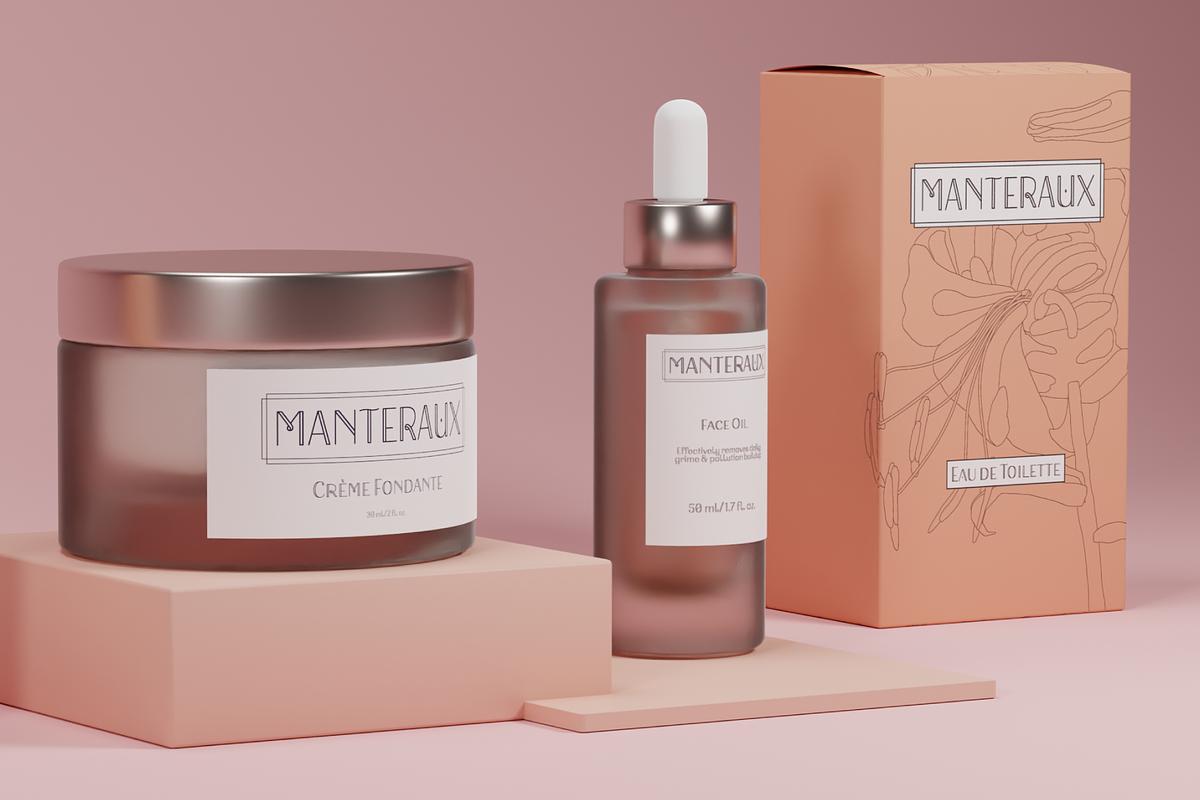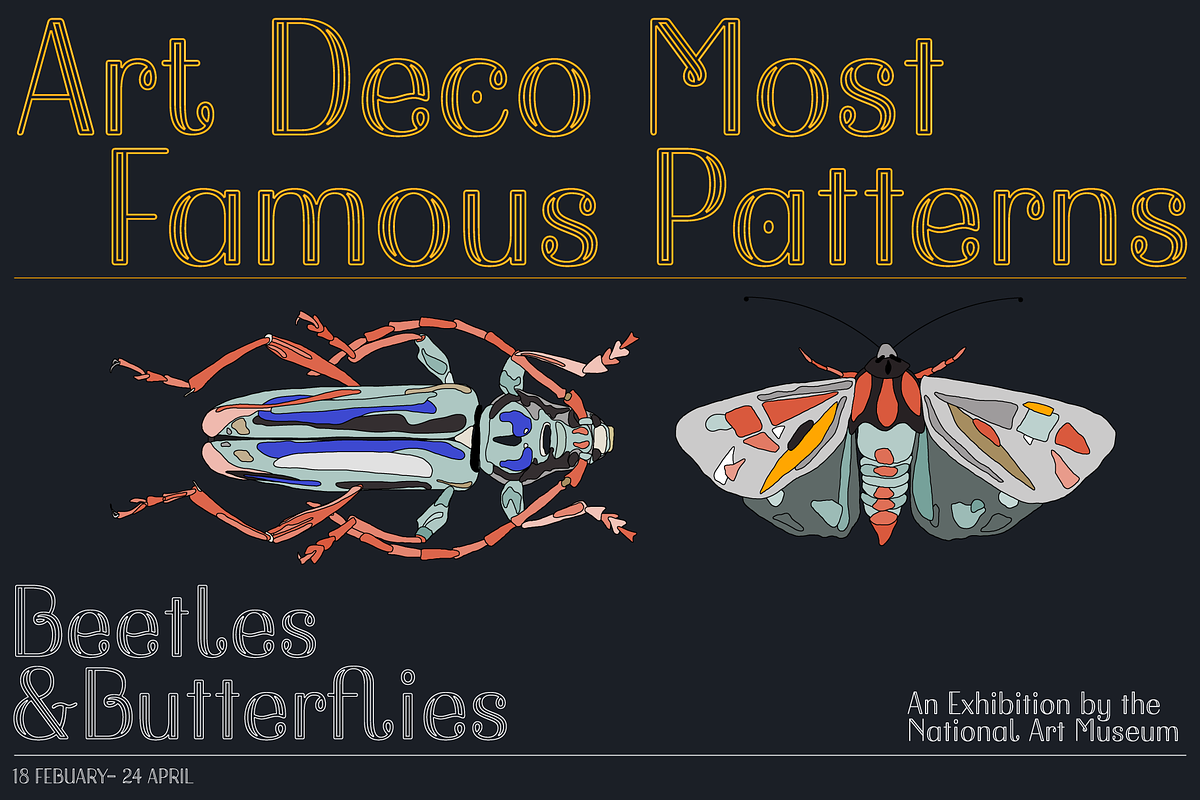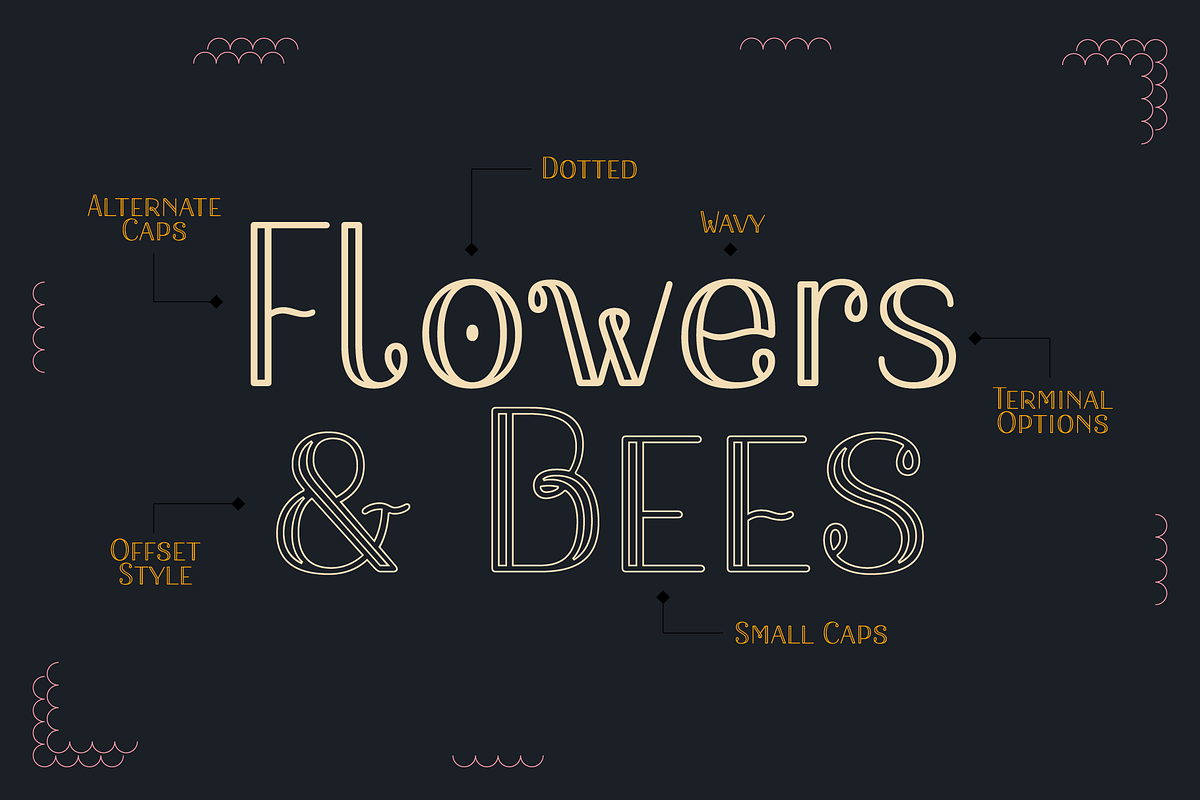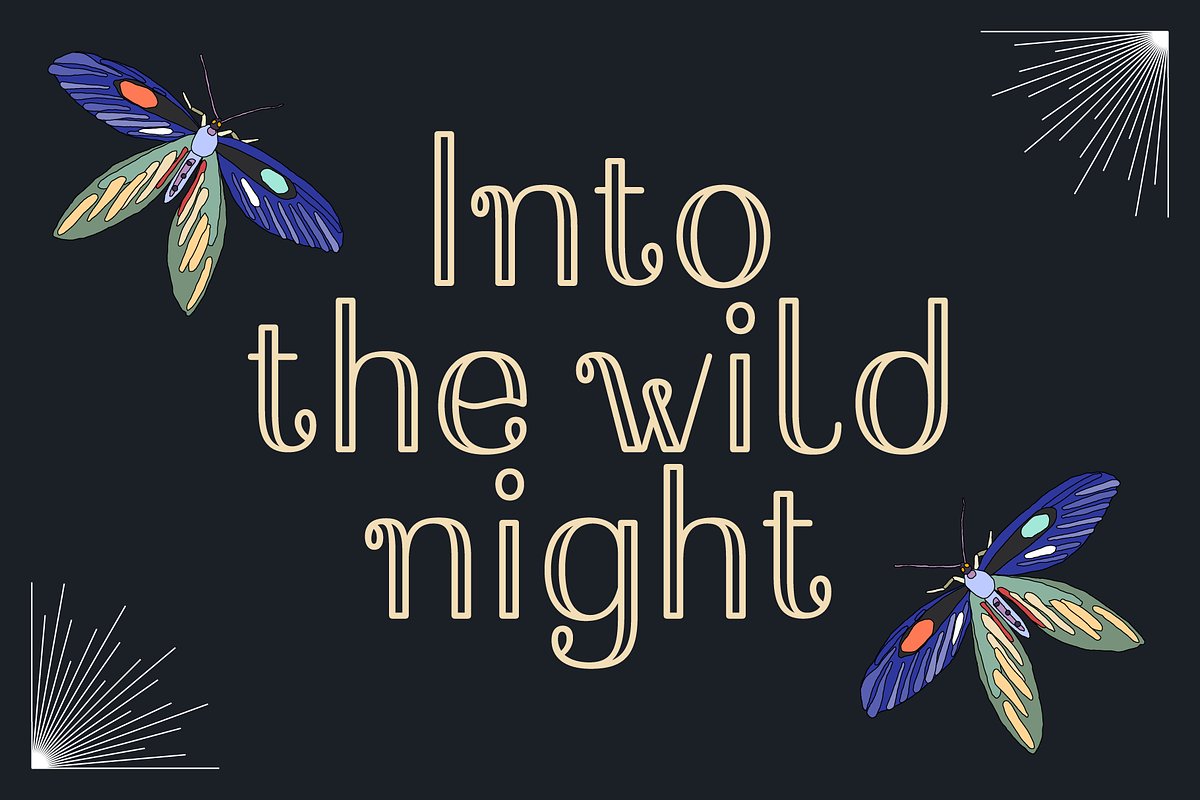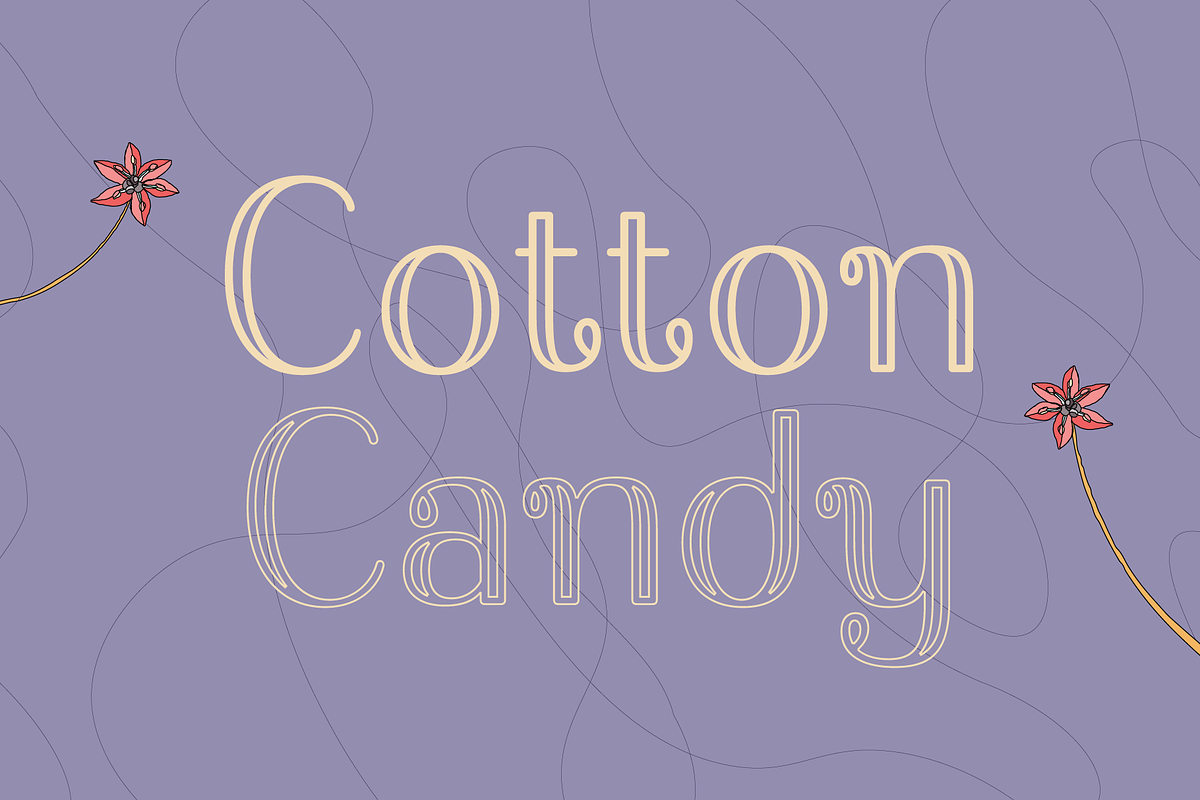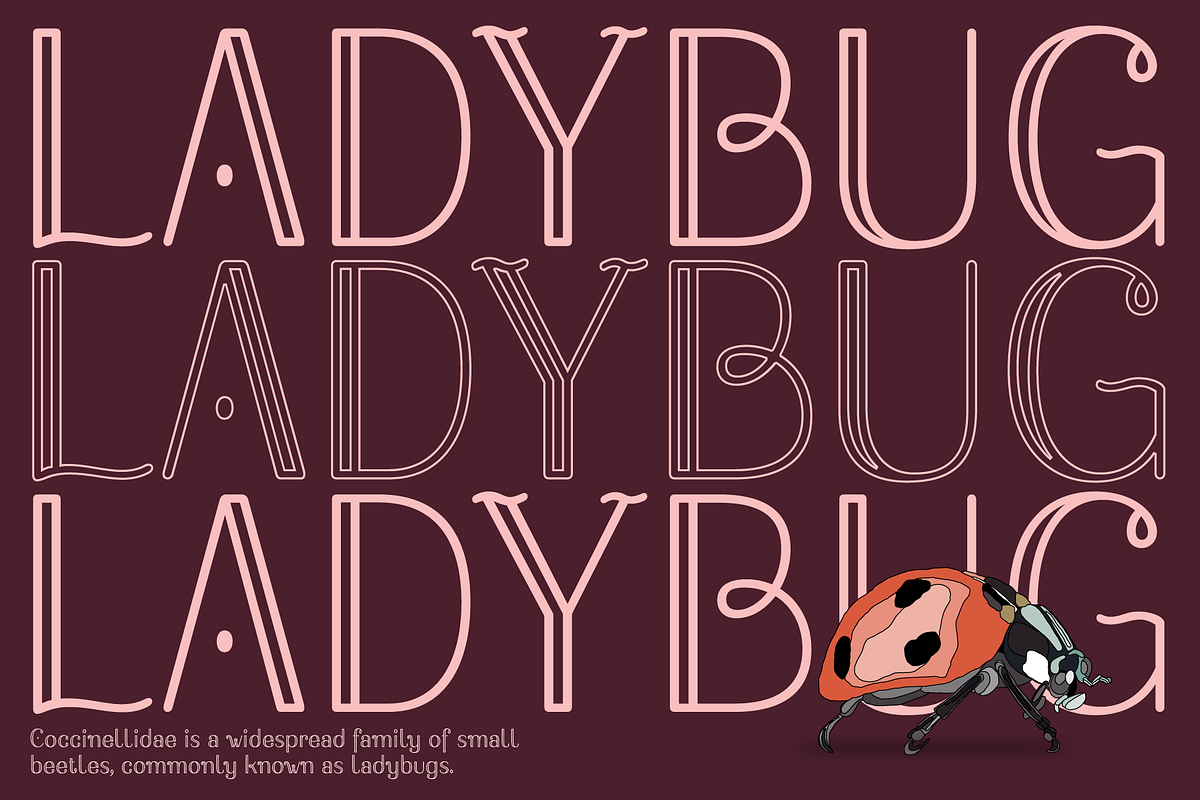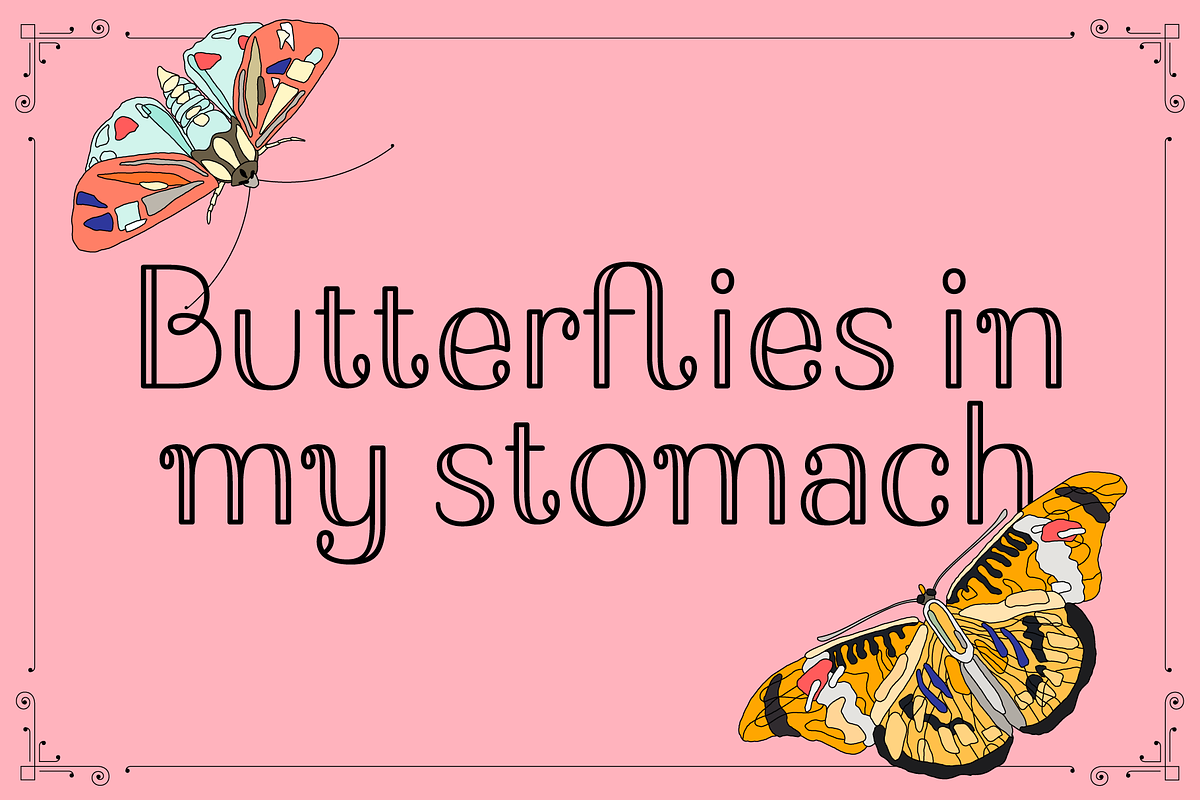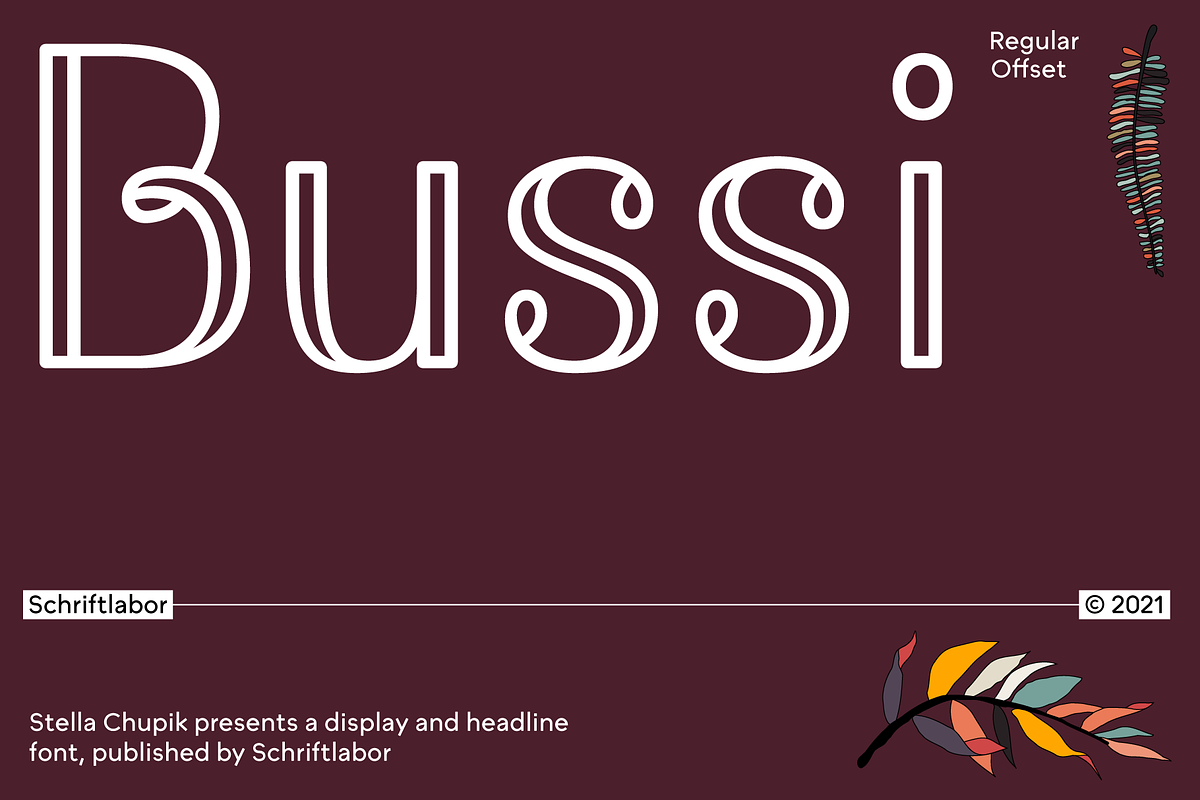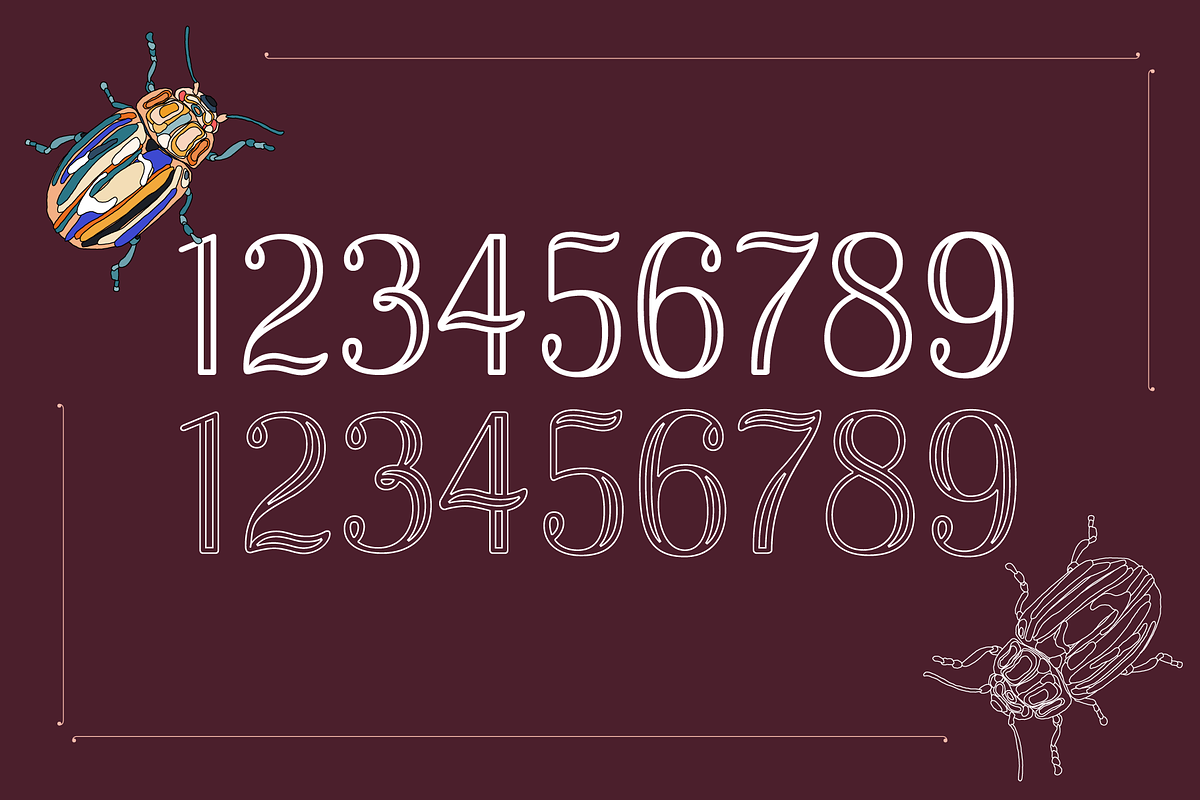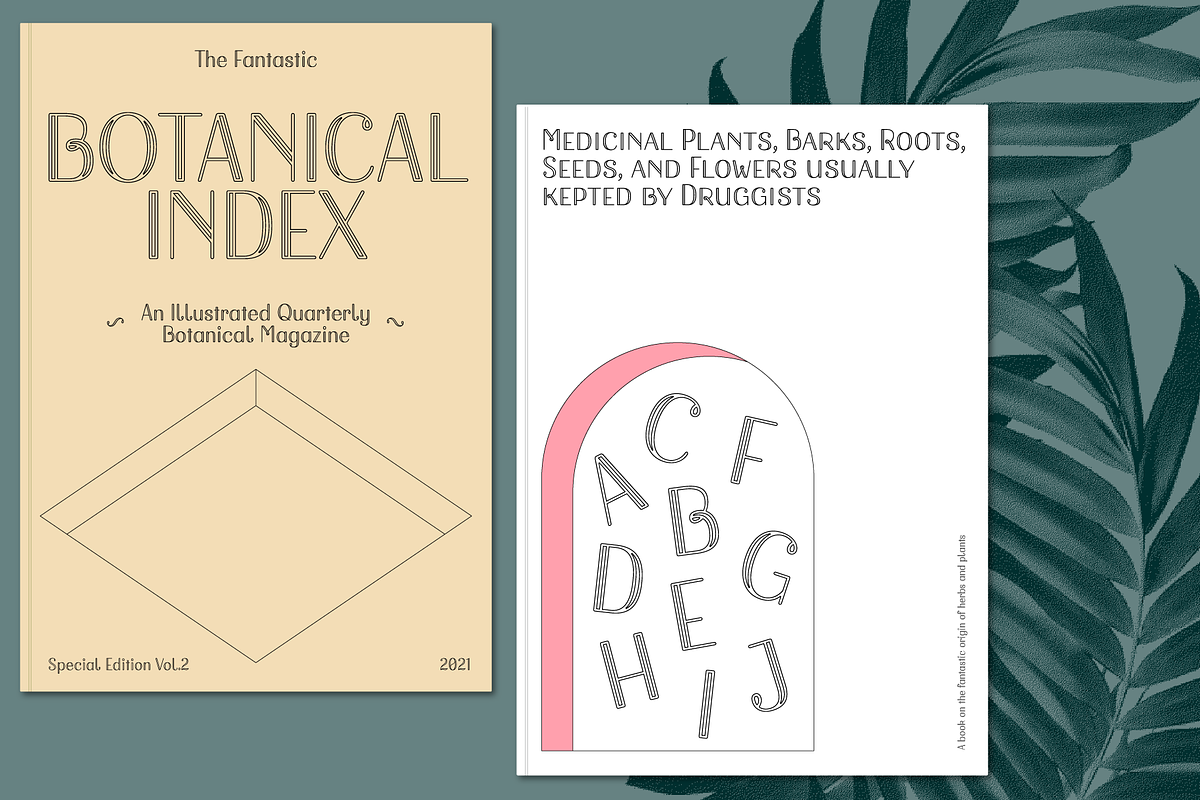
Bussi
Bussi is an inline font family full of extras. It is rich with alternatives and symbols, which makes it a playful font to use. It was inspired by hand lettering and bullet journaling. The font is perfect for branding and packaging to bring your extra brand personality—an ideal font to use for stationery design or even movie titles. Versatile and high-quality Bussi will be your new font love.